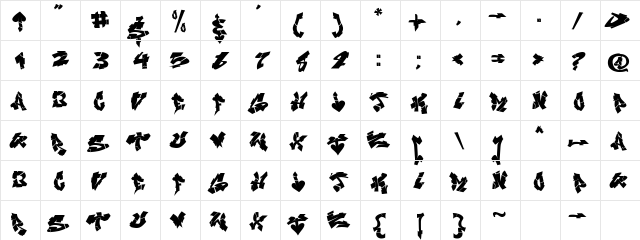
NIghtvandals Regular
| Designer | Rama, Memet, Sipanji |
Design Context for NIghtvandals Typeface
NIghtvandals is a composed and adaptable typeface that performs quietly and consistently across a wide range of design contexts.